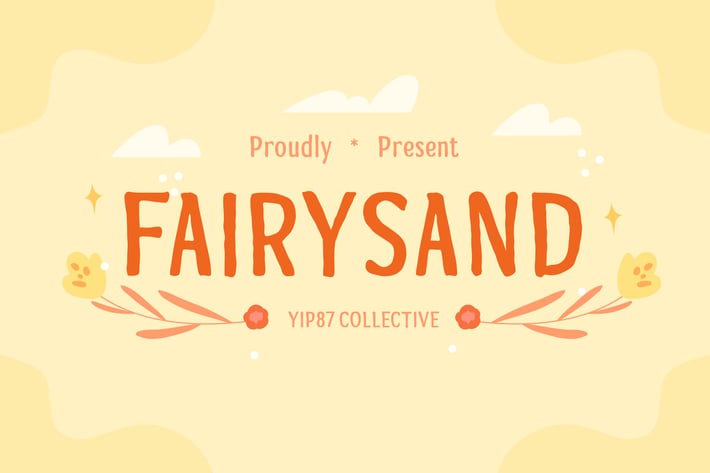
Fairysand - Cute Handwritten Marker Sans Font
Fairysand font is cute, charming and playful style captures the essence of childhood and playful creativity. Perfect for children's products and toys, children's books and publications, educational materials, event invitations and party decorations, carnivals and amusement parks, playgrounds and play areas, animated films and cartoons, use the font in title sequences, character names, and dialogue bubbles for animated films, cartoons, and animations aimed at children.